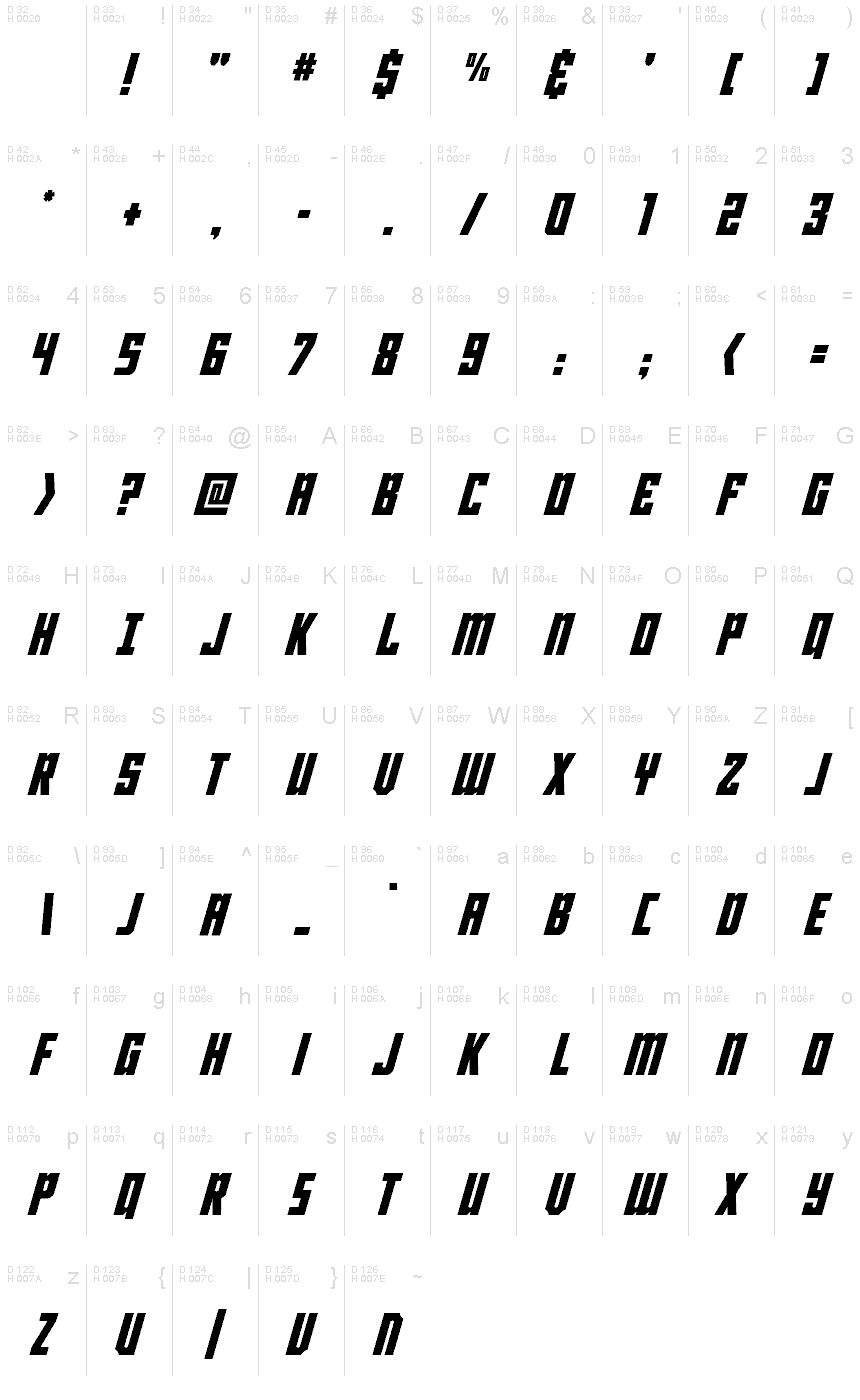
Joy Children Super-Italic
Joy Children Super-Italic font by Iconian Fonts is a distinctive techno display typeface. With its energetic feel and strong visual impact, it effortlessly captures attention with its condensed width. Sleek and modern, it’s a masterpiece of contemporary relevance.